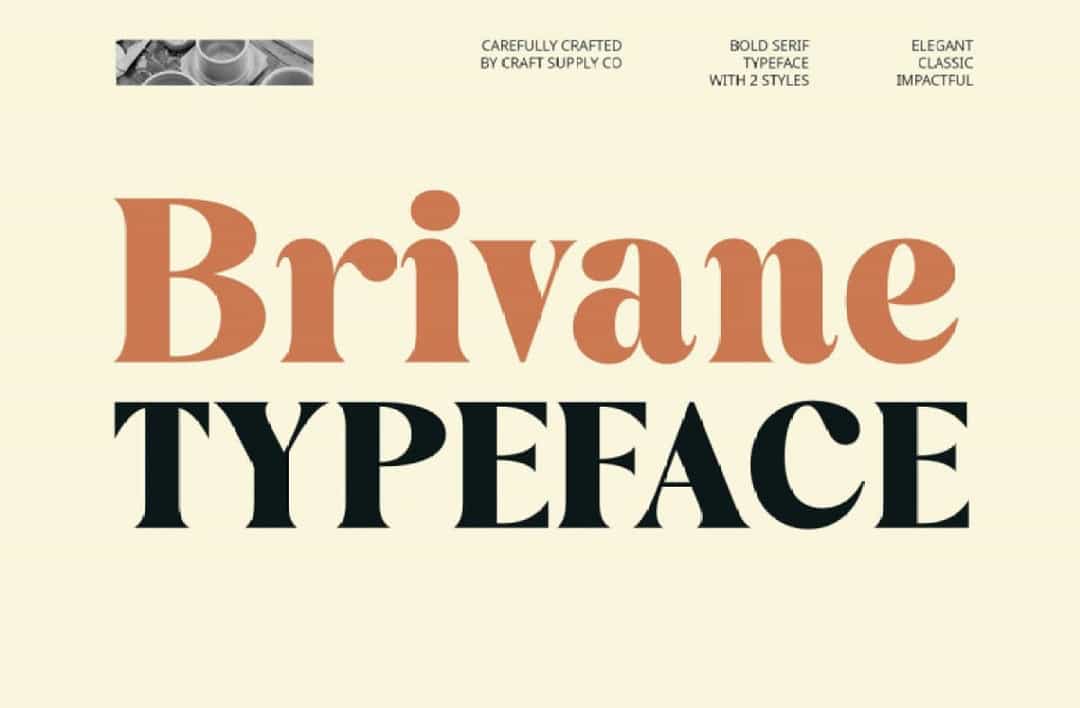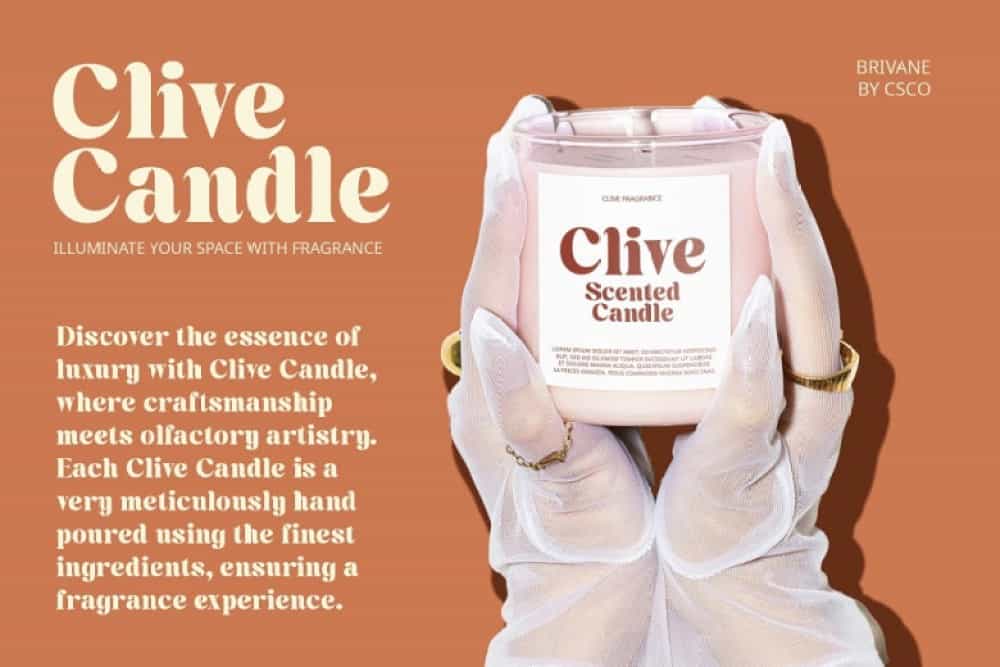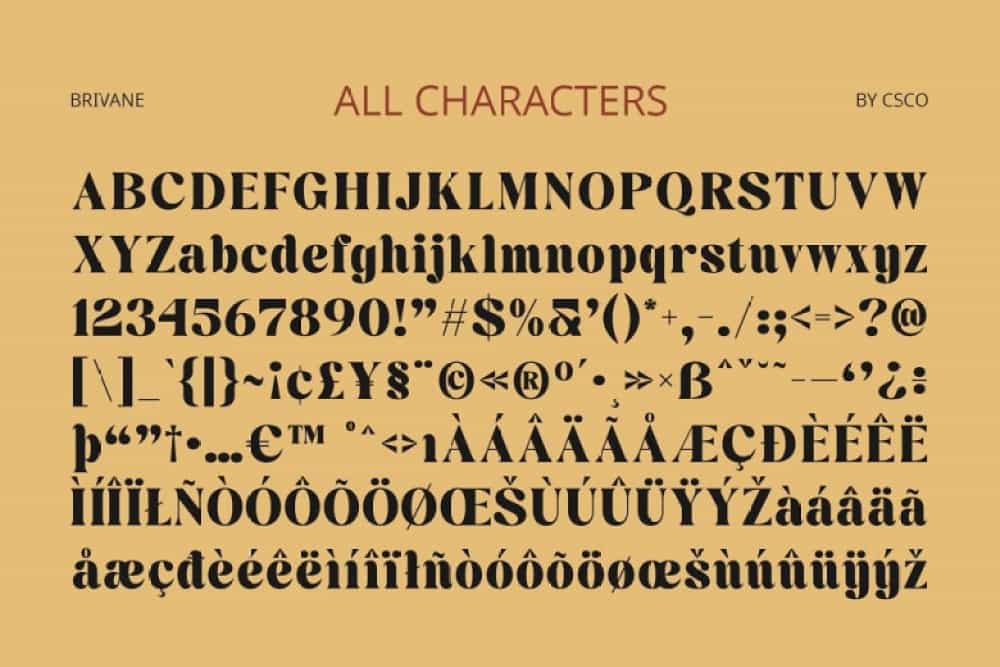
Brivane – is a modern bold serif font with thick strokes and some feeling of retro style. This font is suitable for posters, logos, and any creative work in both digital and print form, giving a retro feel to the content.